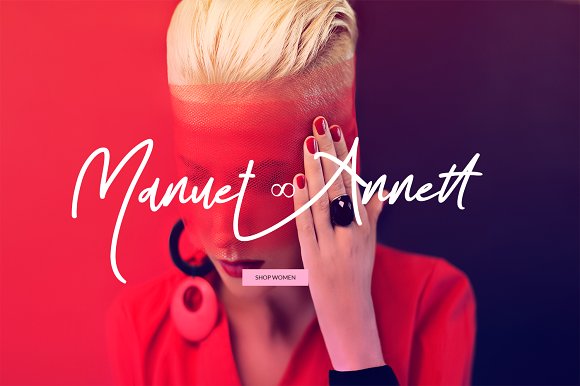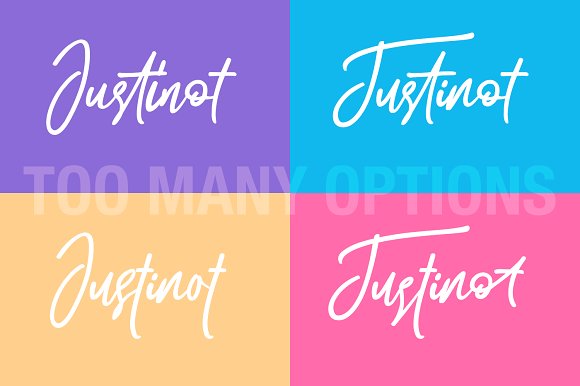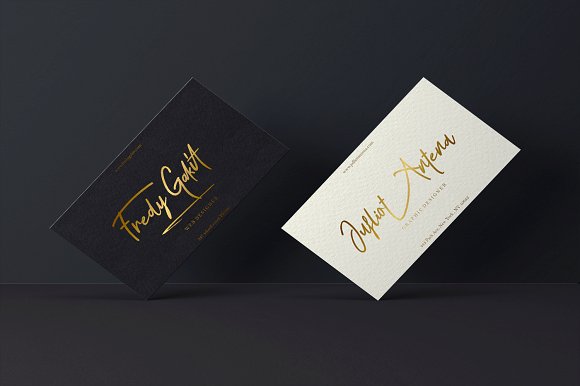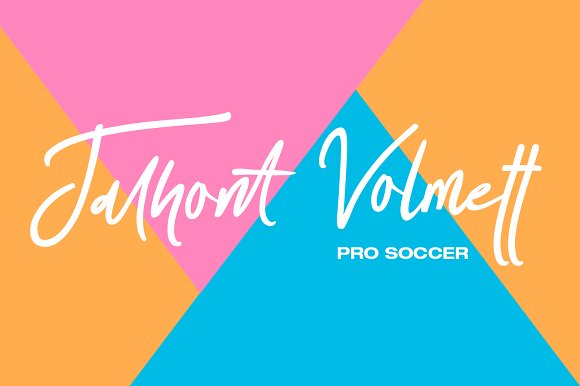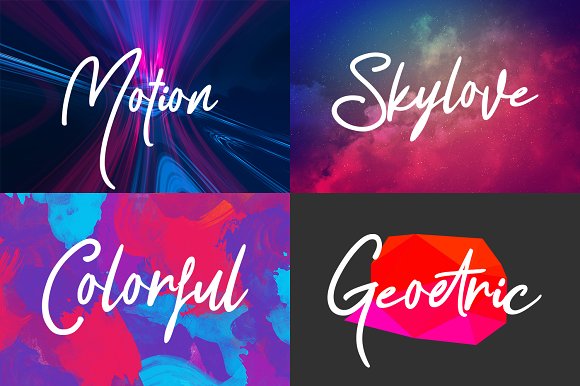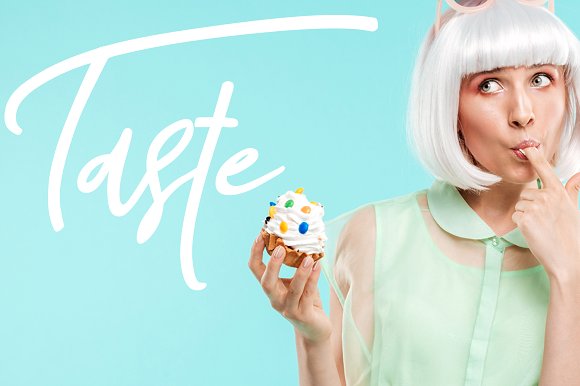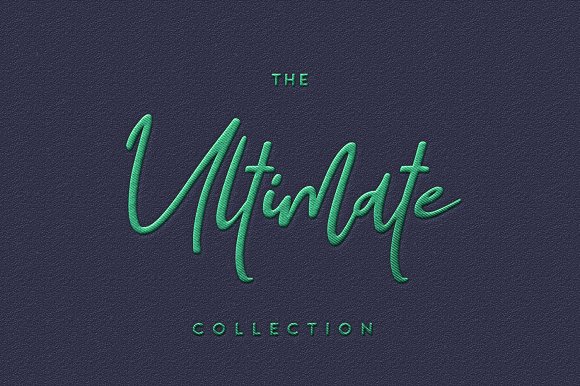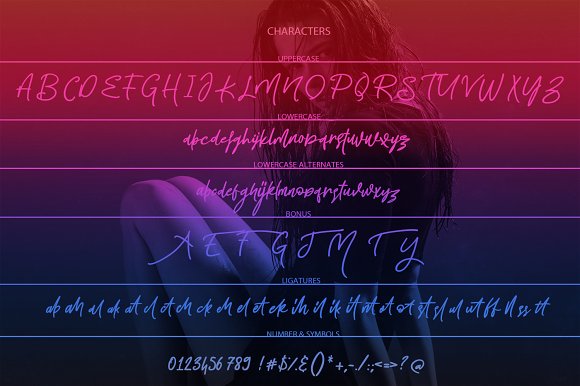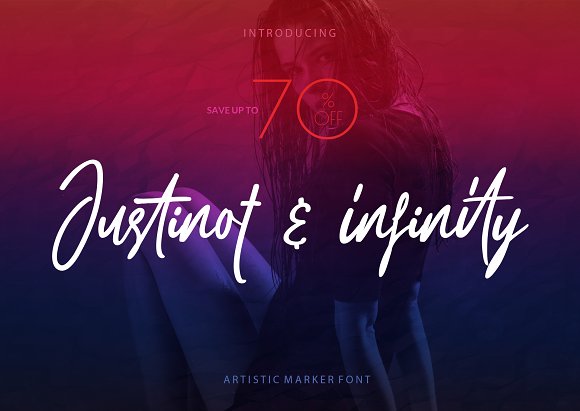
Justinot Infinity Marker Font
Let me introduce you the font Justinot Infinity. It flows like a signature while you type it. It really shows the art of hand-work. It is very legible even though its nature looks like it has extreme lines. It is really unique in this regard. Awesome! Isn’t it? 🙂